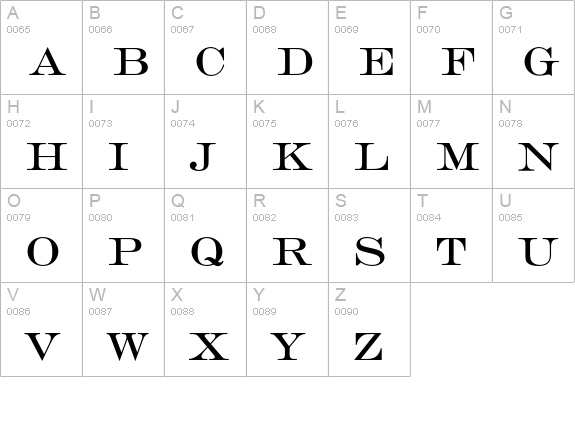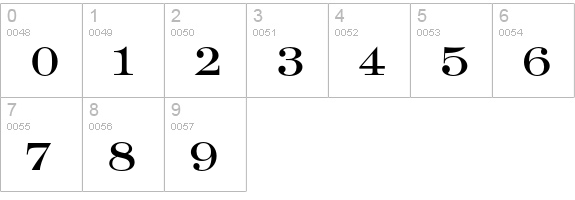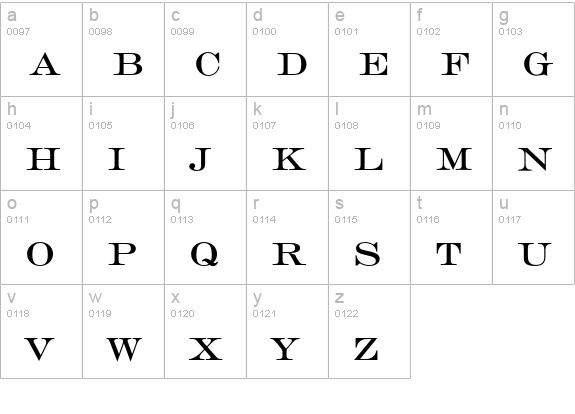
EngraversEF-Roman Font Details
EngraversEF-Roman is a timeless and elegant font that exudes sophistication and class. With clean lines and a classic style, this font is perfect for a wide range of projects, from invitations to branding materials. Its versatility makes it a go-to choice for designers looking to add a touch of refinement to their work. The best part? EngraversEF-Roman is available for free download at FontsMarket.com. This means you can elevate your designs without breaking the bank. Whether you're working on a personal project or a client's commission, this font is sure to impress with its timeless appeal and professional look. Don't miss out on the opportunity to enhance your designs with EngraversEF-Roman. Download it for free today and see the difference it can make in your work.